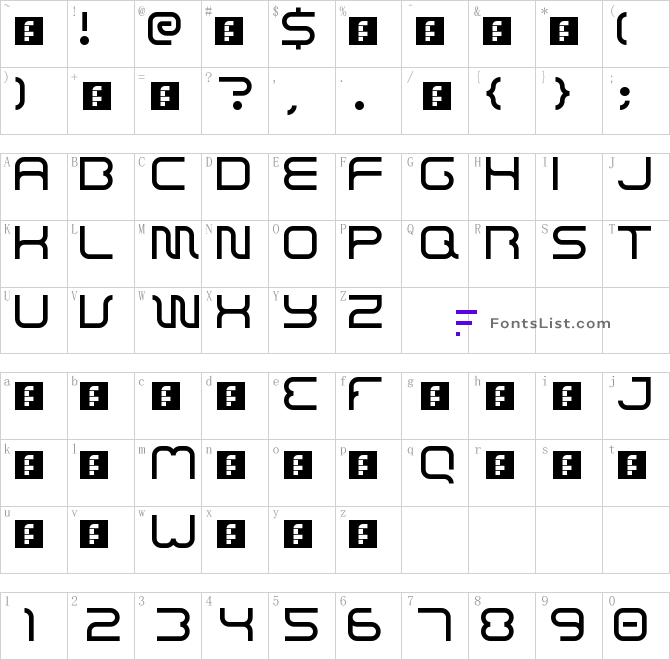
- Font Name:Bajaj Sans
- Subfamily:FontStruct Bajaj Sans
- Full Name:Bajaj Sans Regular
Bajaj-Sans-Regular-copy-2-.ttf is a very beautiful artistic font, Bajaj-Sans-Regular-copy-2-.ttf is widely used in the design and printing of various books and pictures,Bajaj-Sans-Regular-copy-2-.ttf has a strong visual impact,Bajaj-Sans-Regular-copy-2-.ttf is a commonly used font in newspapers, magazines and books, and is used in posters, e-commerce Poster design, store design, logo design, font design and other fields.Bajaj-Sans-Regular-copy-2-.